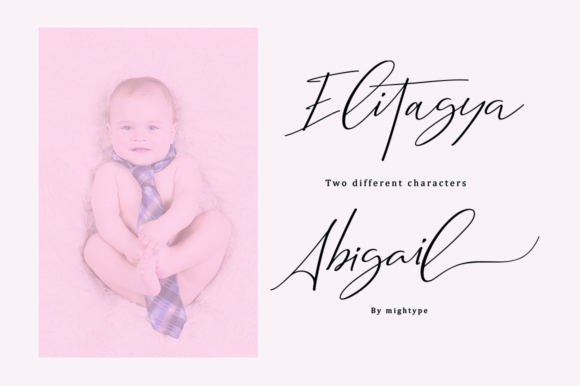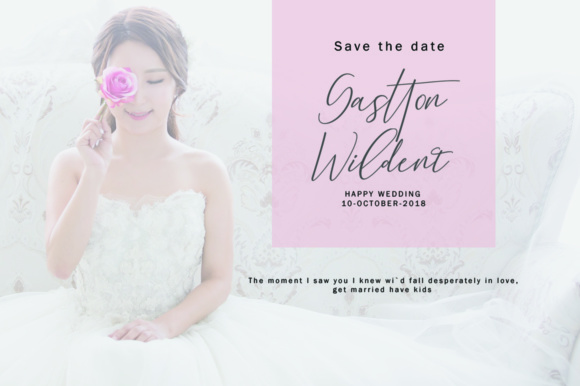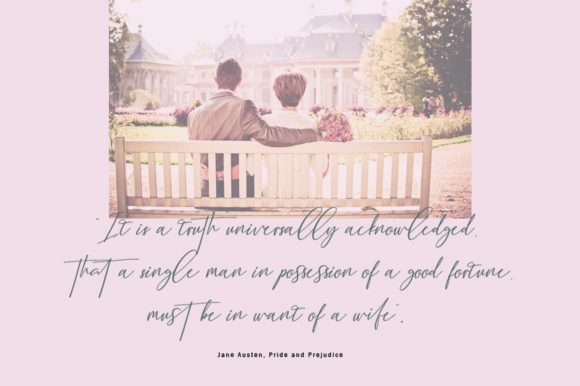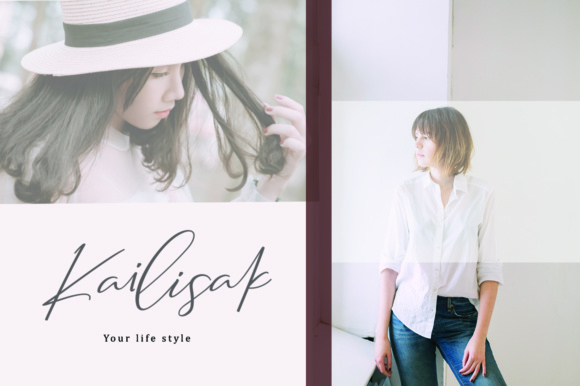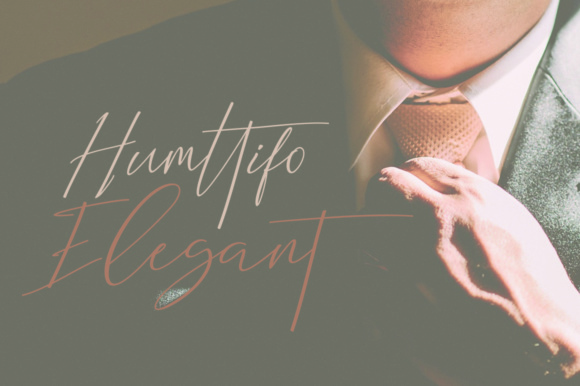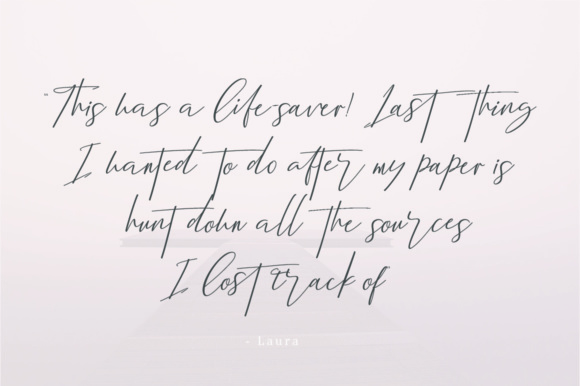
Unleashing the Art of Handwritten Charm
Have you ever been captivated by the beauty of handwritten notes, perfectly crafted by a loved one? The imperfections, the flow, the personality that shines through – it’s a unique language that speaks directly to our hearts. As designers, we strive to recreate this essence in our work, making it relatable and authentic. That’s where the Bethany Script Font Font comes in – a modern calligraphy script that embodies the magic of handwritten charm.
Perfect for branding, wedding invitations, and various print materials, the Bethany Script Font Font is a valuable asset for designers looking to add a touch of elegance and sophistication to their work. Its versatility and beauty make it a go-to choice for creating memorable designs that leave a lasting impression.
Bethany Script Font Features
- Unique Characteristics: Elegant, cursive script font with a modern touch, perfect for creative projects and personal branding
- Style Options: Includes 5 different font styles, including Regular, Bold, Italic, Bold Italic, and a special “Swash” version for added flair
Bethany Script Font Review
I recently had the chance to work with the Bethany Script Font, and I must say it’s a beautiful script font with a lot of character ✨. The designer has done a great job of creating a font that feels both elegant and approachable. The curves are smooth, and the letterforms are well-balanced, making it a joy to read and write.
The font includes a wide range of weights and styles, from light to bold, which gives it a lot of versatility. The script is also highly customizable, with options for adjusting the size, spacing, and color of the text. This makes it a great choice for designers who need to create a unique and personalized look for their projects.
- Beautiful, elegant script design ✨
- Wide range of weights and styles
- Smooth curves and well-balanced letterforms
- May not be suitable for very small or large text sizes ⚠️
- Some users may find the font too ornate or over-the-top
- May not be as readable in certain contexts or on certain devices
Overall, I think the Bethany Script Font is a great choice for designers who want to add a touch of elegance and sophistication to their projects. While it may have some limitations, the benefits far outweigh the drawbacks, and I would highly recommend it to anyone looking for a high-quality script font.
Tips for Getting the Most Out of Bethany Script Font
To get the most out of Bethany Script Font, try the following:
- Use it in combination with other elegant fonts for a sophisticated look.
- Use it for titles and headings to add a touch of elegance.
- Experiment with different colors and backgrounds to create a unique look.
Bethany Script Font is perfect for:
- Wed